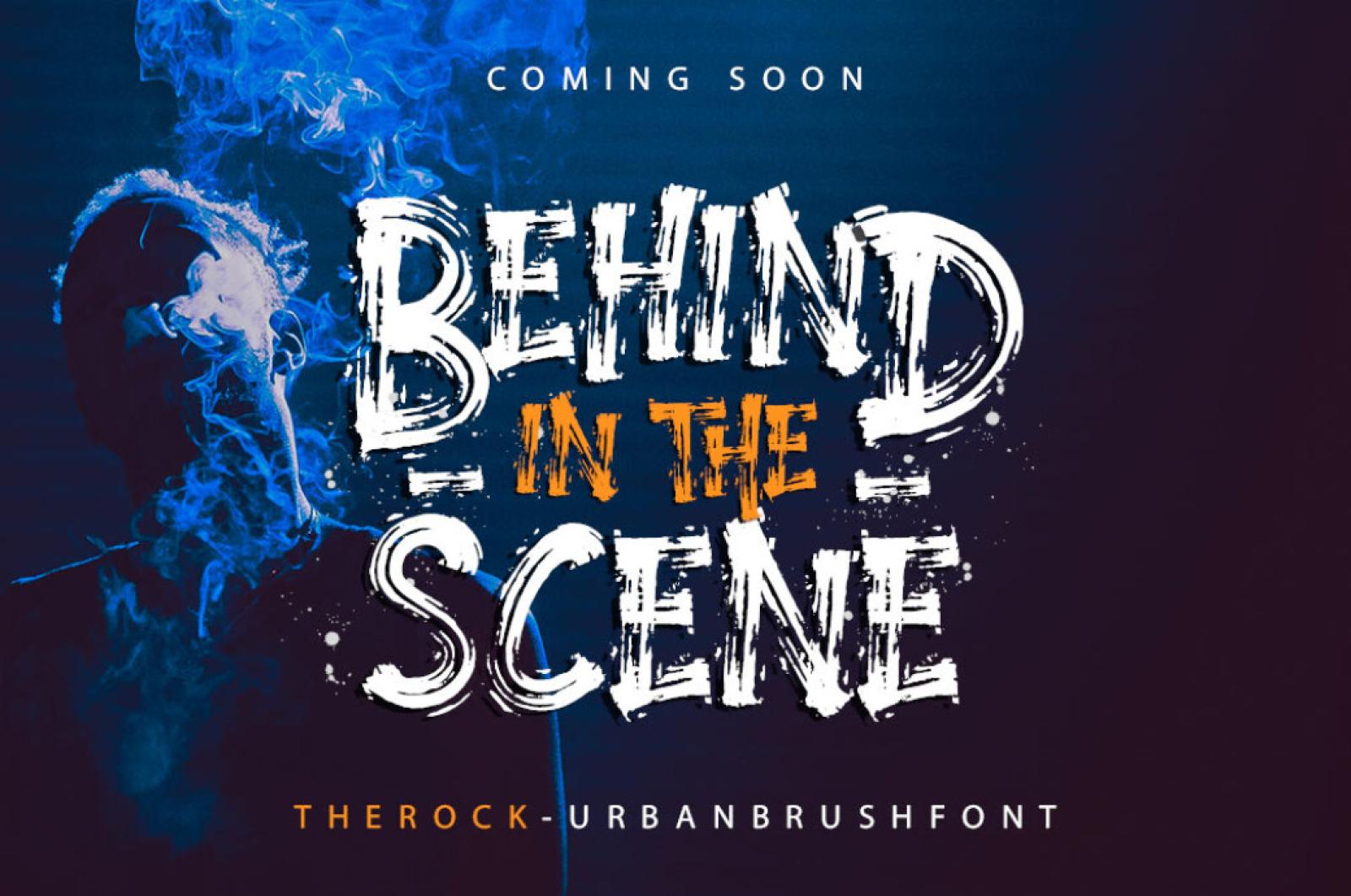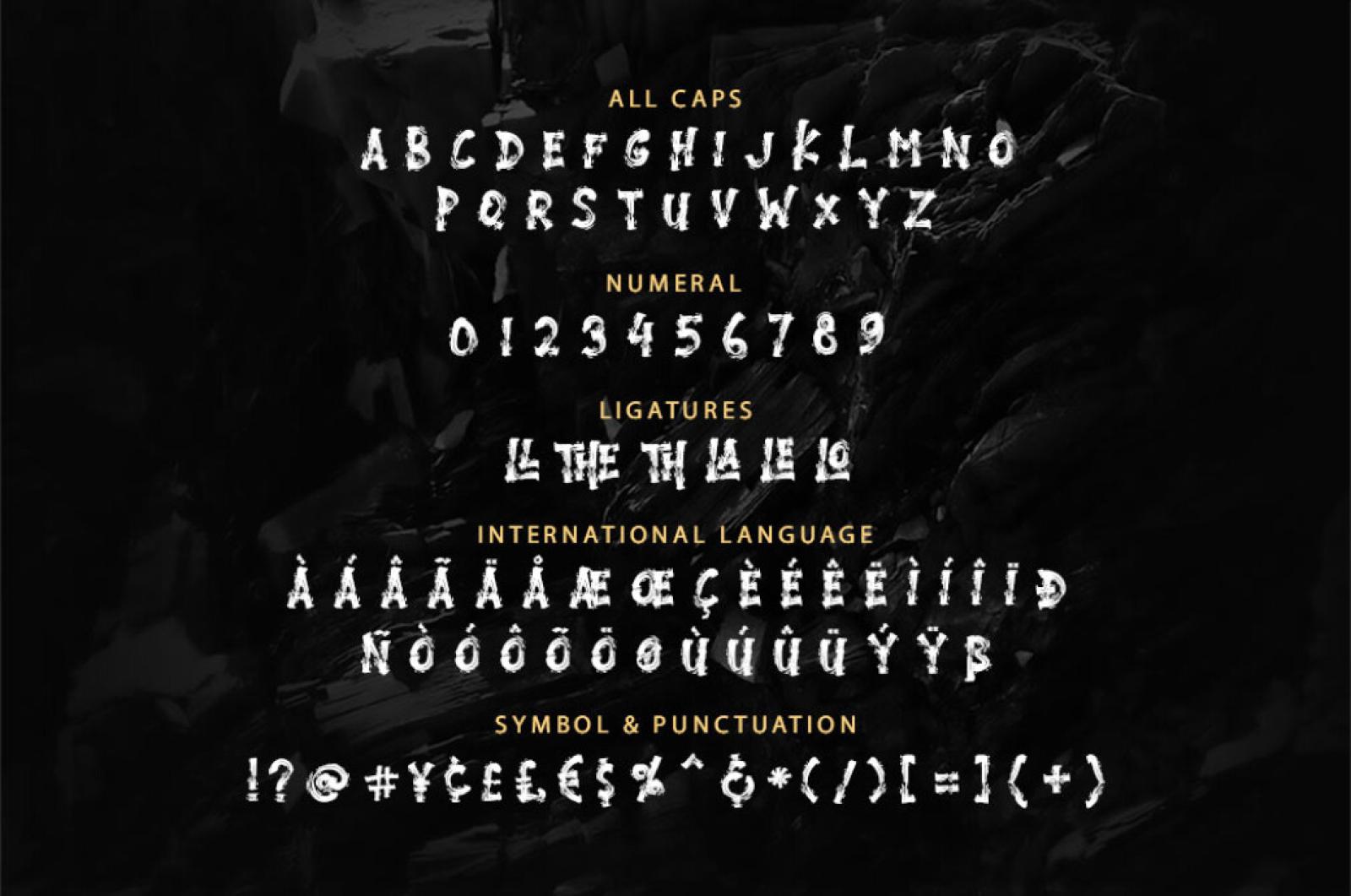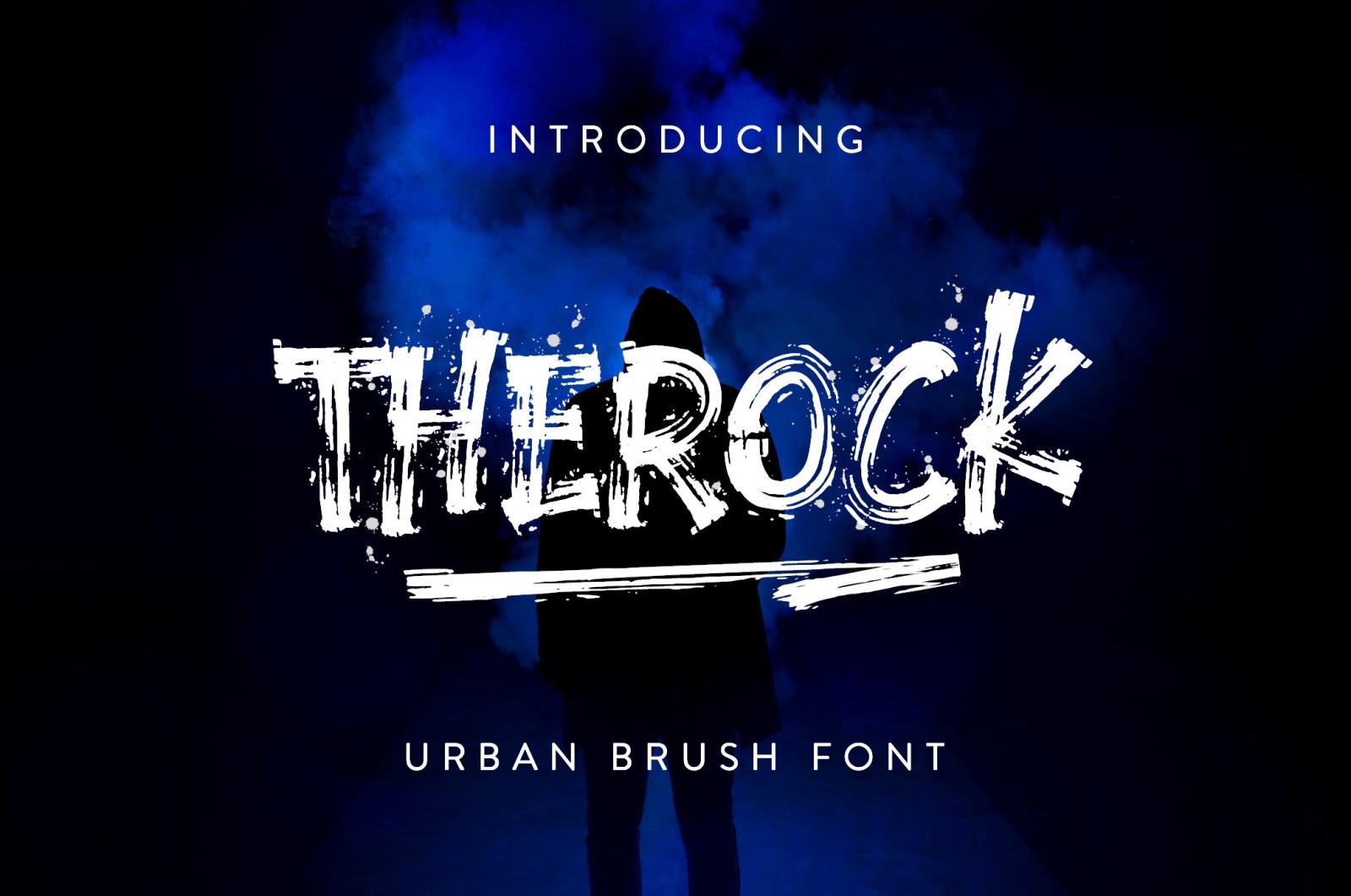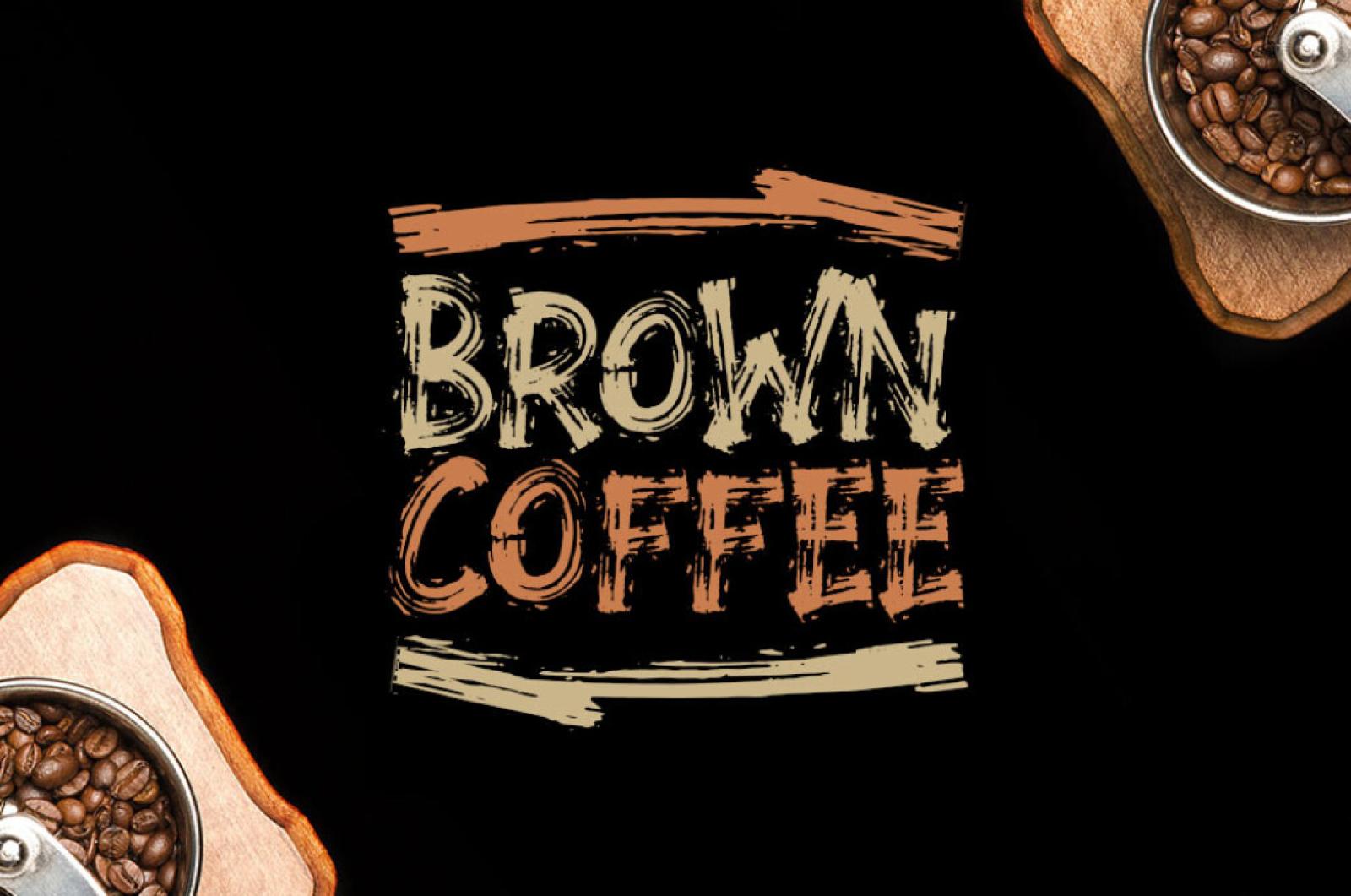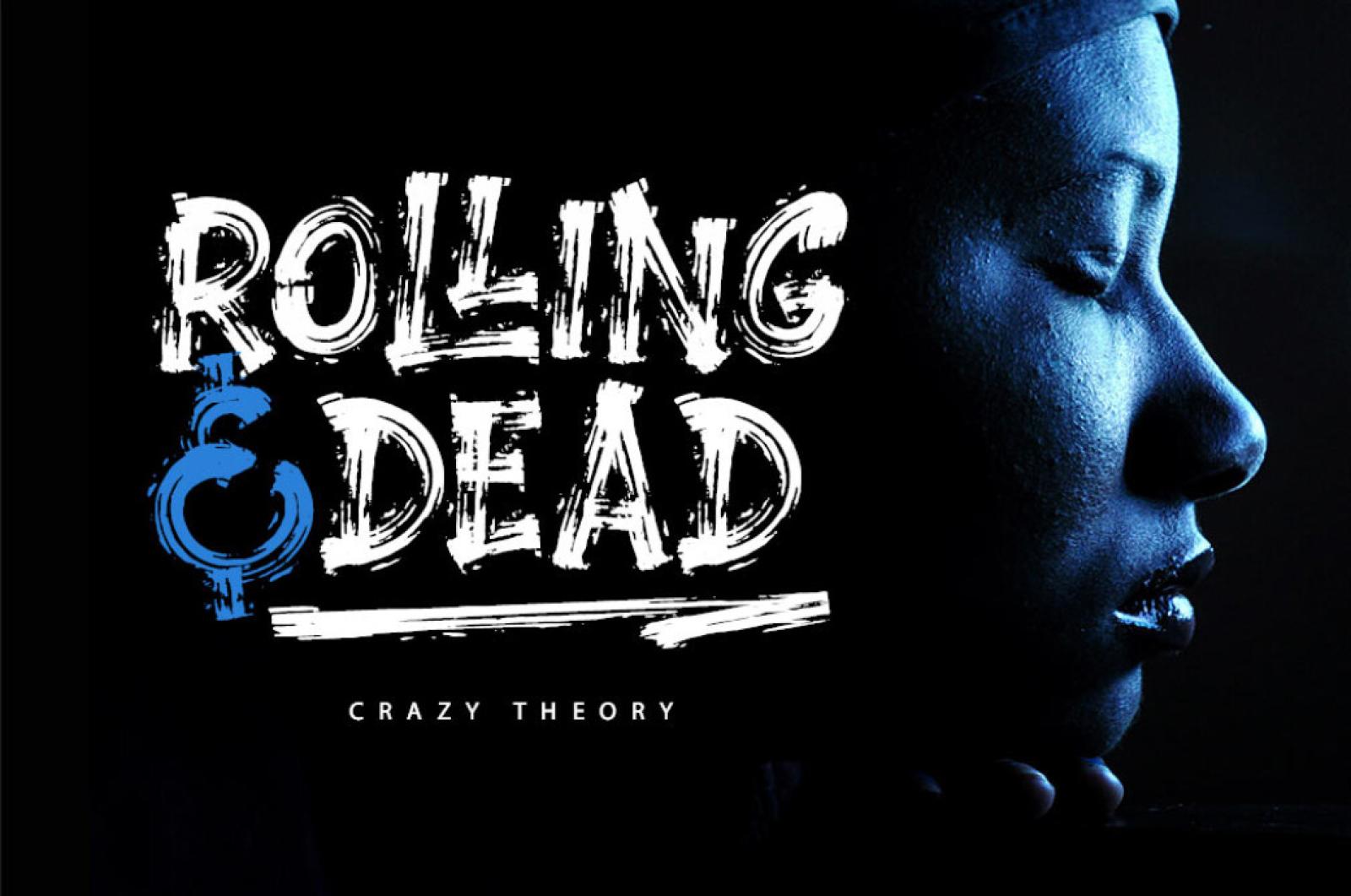
The Rock Brush Font
Are you brave enough to let some urban craziness enter your workspace? Cuz this display font is nothing than a true maverick spirit in a calligraphic form! Turbo-power for any project is guaranteed.
The Rock is a brush font with extra attention to quick strokes and sharp details. It includes 2 versions: Regular and Swash for creating some standard and rough effects. Be careless about the language you use extra characters support many different ways of sharing your messages with the world. Do you know where The Rock would look great? On your t-shirts, packaging, logos, printouts, websites, you can continue for as long as you want. This display font is on fire!